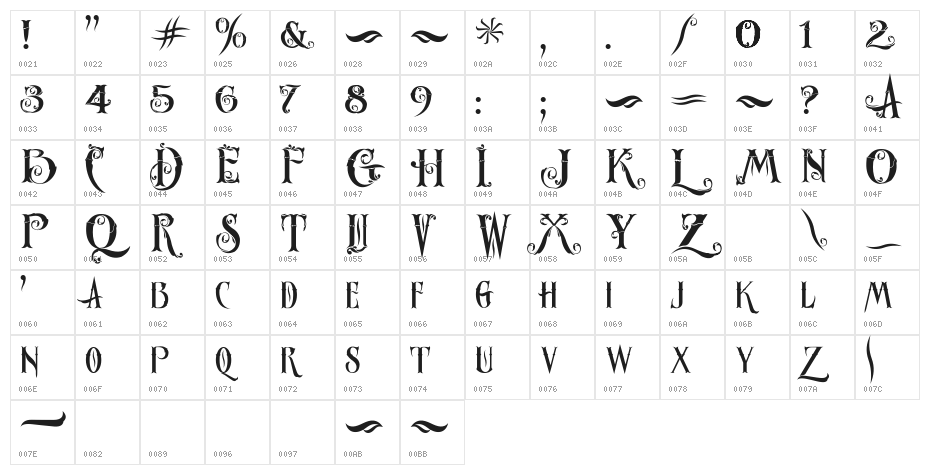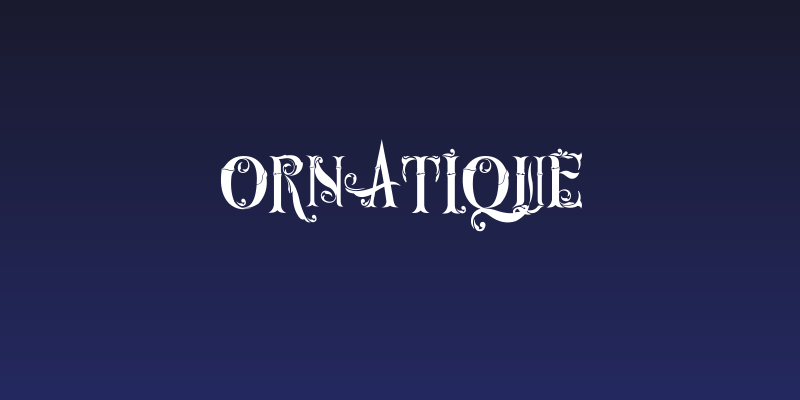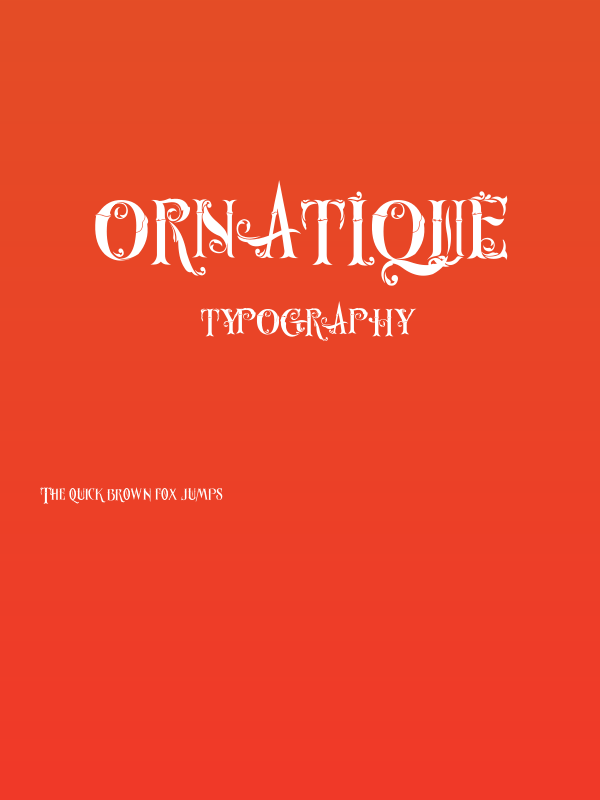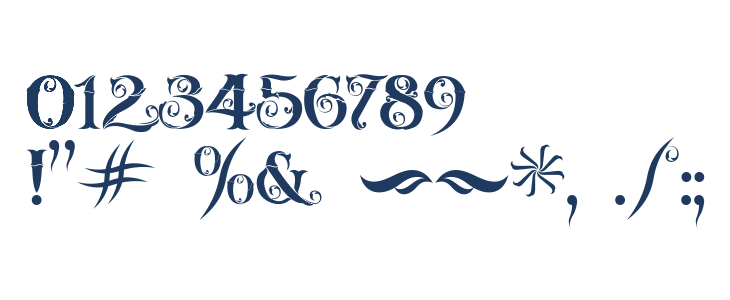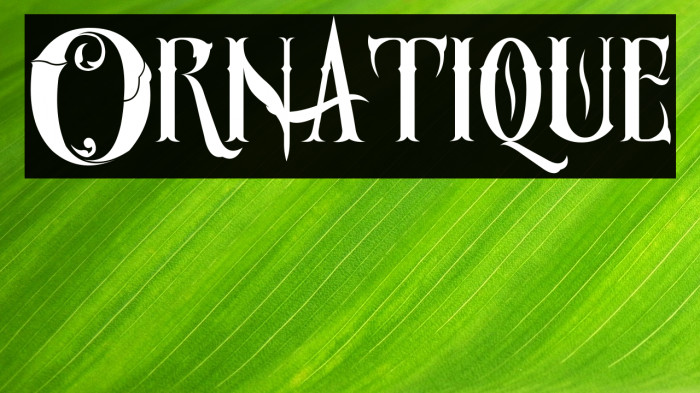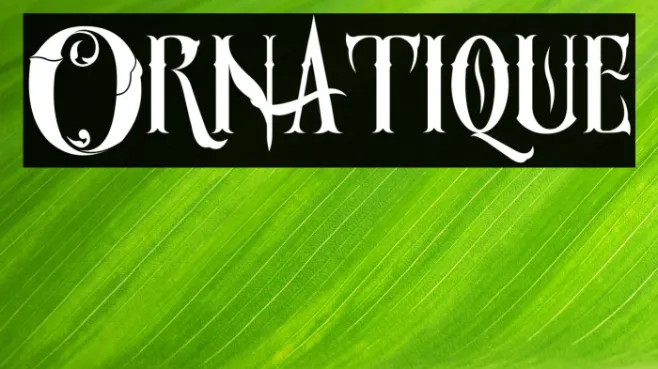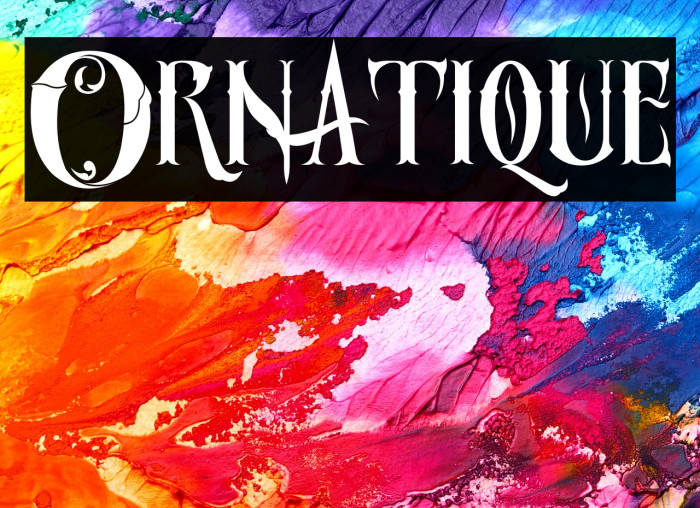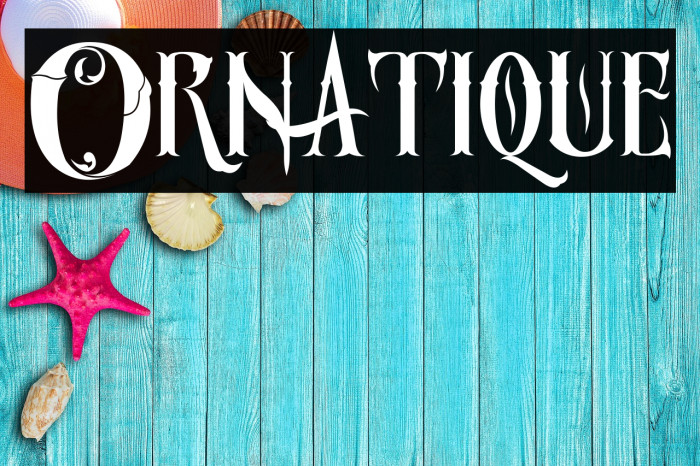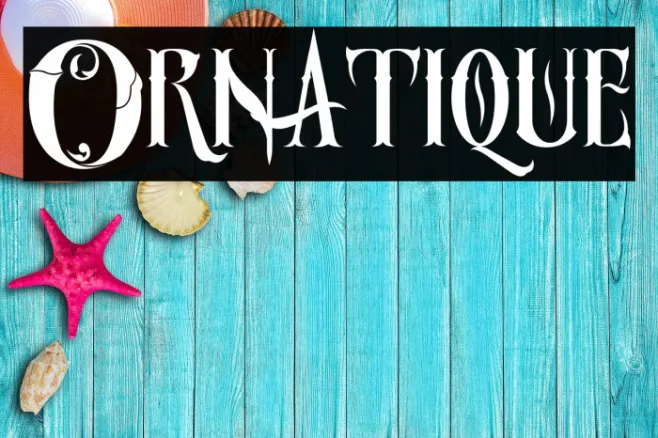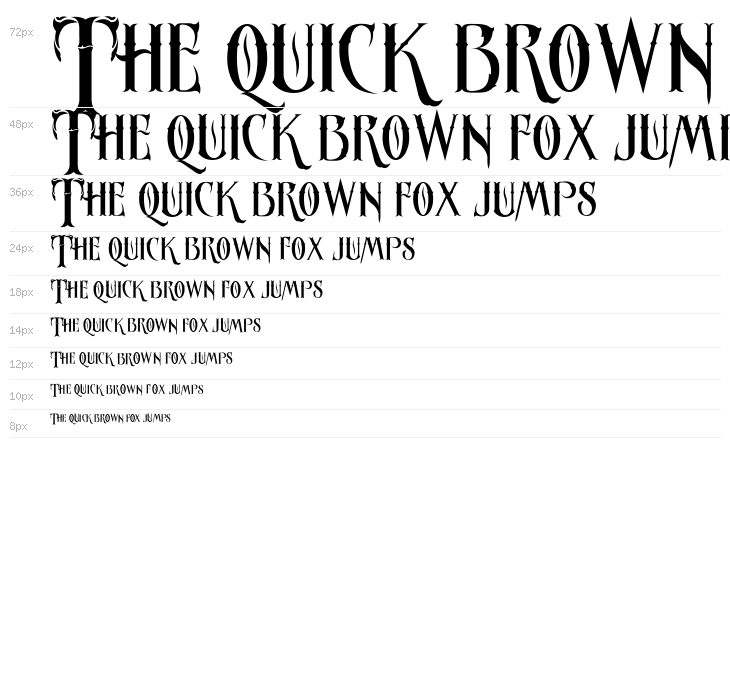
Ornatique Font
Ornatique Description
This font exudes an elaborate and decorative style, characterized by its intricate swirls and flourishes that embellish each letter. The uppercase letters are particularly ornate, with additional curls and loops that give them a regal and sophisticated appearance. The lowercase letters maintain a similar decorative flair, ensuring consistency throughout the typeface. The numbers and special characters are equally adorned, making them stand out with their unique and artistic design. This font is ideal for projects that require a touch of elegance and creativity, such as invitations, posters, or branding materials that aim to capture attention with their distinctive style.
| Proposed Projects | Perfect for wedding invitations, luxury branding, artistic posters, and decorative signage. |